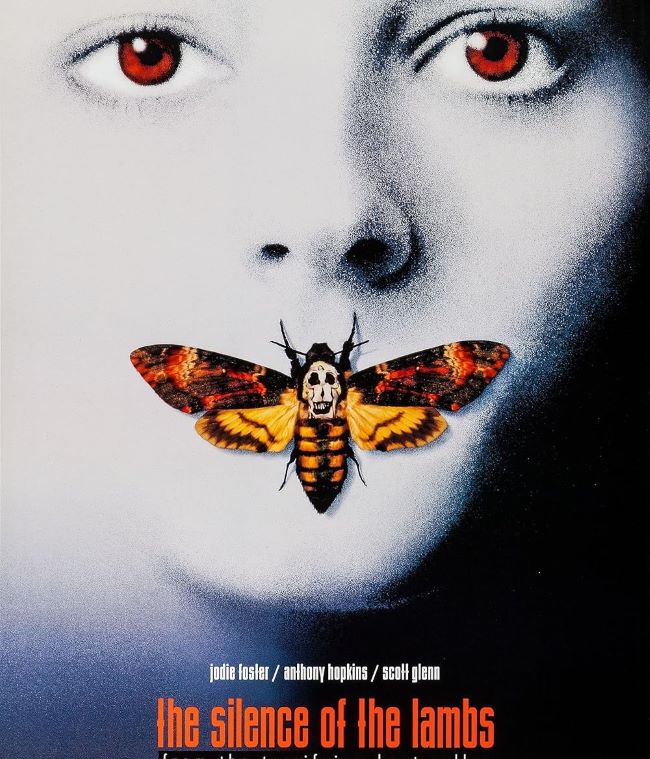
The Silence of the Lambs Font masterfully blends intellectual sophistication with underlying menace, creating typography that feels both cultured and unsettling. This distinctive typeface captures the psychological complexity of one of cinema’s most iconic thrillers, offering designers a powerful tool for creating atmospheric, tension-filled visuals.
BStyle is the official font for The Silence of the Lambs movie.
The Silence of the Lambs Font
The Silence of the Lambs Font features elegant serifs that communicate refinement while maintaining an ominous presence. Its balanced proportions work exceptionally well for psychological thriller posters, true crime documentaries, literary book covers, and premium horror content requiring sophisticated presentation.
This typography demonstrates how fonts convey character depth beyond mere words. The Silence of the Lambs Font remains essential for creators seeking to balance elegance with darkness, proving that intelligence and terror can coexist within letterforms.